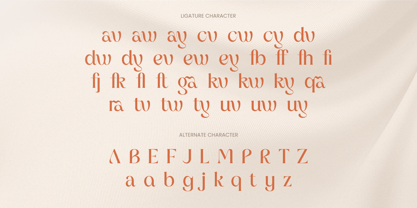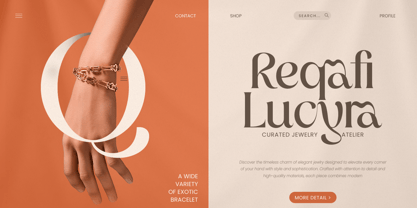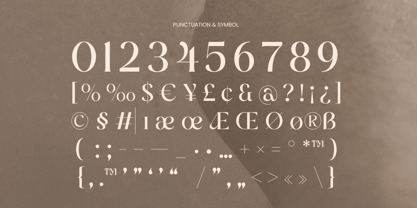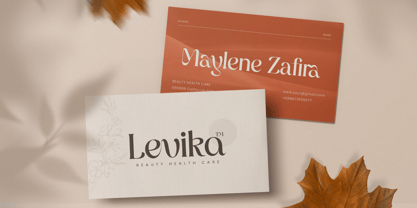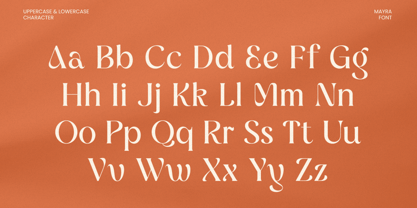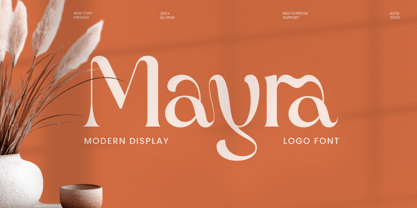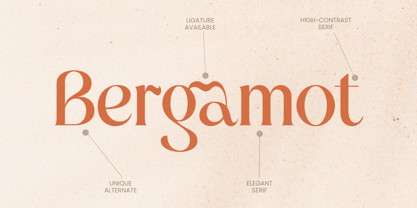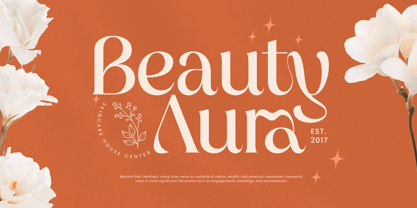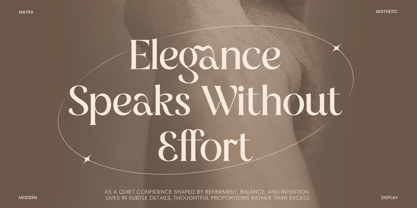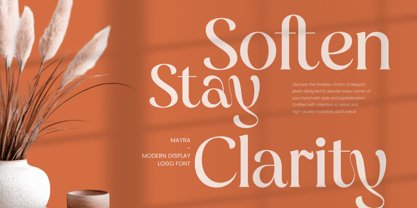
Mayra
Mayra is a modern display logo font crafted to deliver bold impact with clean, contemporary clarity. With confident shapes and a strong visual presence, this typeface helps brands stand out fast—perfect for designers who want modern typography that feels sharp, stylish, and highly recognizable.
Designed for logo-first applications, Mayra works seamlessly across wordmarks, brand identity systems, posters, packaging, labels, website headers, signage, social media graphics, and promotional layouts. Its display-driven structure keeps headlines powerful and legible, while the modern styling supports a polished, professional look across both digital and print.
Whether you’re building a startup logo, creating product branding, launching a creative campaign, or designing modern marketing assets, Mayra provides a strong typographic foundation that makes your visuals feel bold, modern, and unmistakably on-brand.
Inspiration Behind Mayra
Mayra is inspired by contemporary branding typography and modern display design—where clarity, confidence, and strong form create instant recognition. The design focuses on clean structure and bold rhythm to support modern identity systems, impactful headlines, and logo-centric communication with a sleek, professional tone.
Mayra Font Features:
• Modern display letterforms optimized for logo and wordmark design
• Bold, clean structure for high-impact branding and headlines
• Strong readability for posters, packaging, and marketing layouts
• Uppercase, lowercase, numerals, and punctuation included
• OpenType features for polished professional typesetting
Perfect For
• Logo design, wordmarks, and modern brand identity systems
• Posters, headlines, campaigns, and promotional typography
• Packaging, labels, product branding, and retail visuals
• Website headers, social media graphics, and digital ads
• Signage, presentations, and clean modern marketing assets
Multilingual Support
Make your branding stand out with Mayra—a modern display logo font built for bold, clean visual impact. ✨